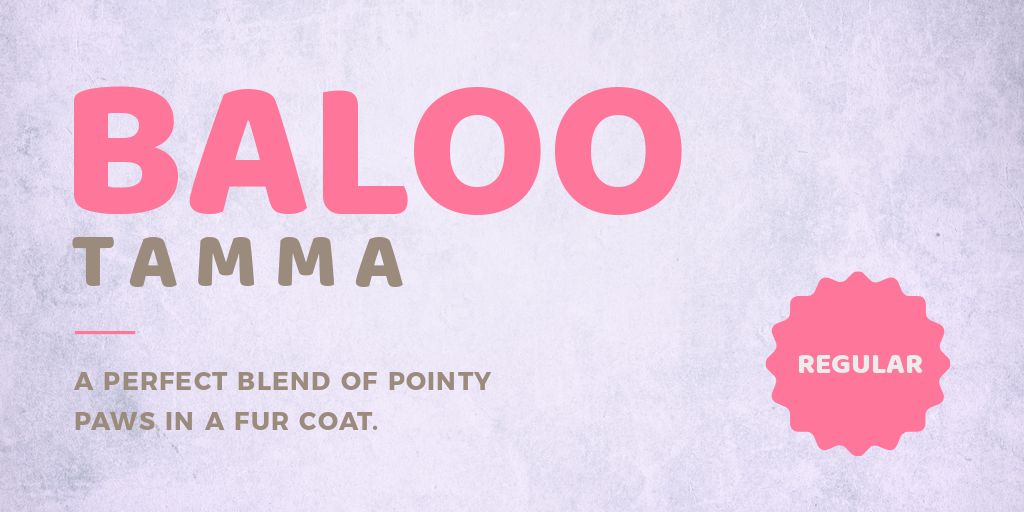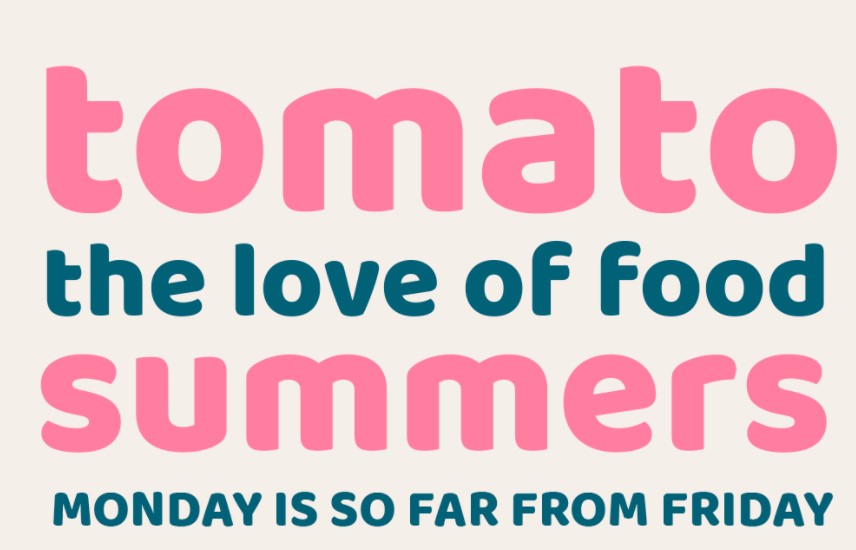
Baloo Font Pairing. Drawing from the visual style of the california public, barlow shares qualities with the state's car plates, highway signs, busses, and trains. These are some latest pairings for you to be inspired and create your exclusive font pairing, although there are no fixed rules for pairing fonts to create a unique design.
Designed By Ek Type, Baloo Is A Bubbly, Rounded Font, And Works Well With A Simple Font Like Montserrat, Due To It’s Lighter Weight.
That stylish font has a popular texture so that can also be used in font pair conditions just as the hack font. Furthermore, it has 1408 unique glyphs with 165 international language support. A perfect blend of pointy paws in a coat of fur, baloo is an affable display typeface by ek type.
Now By Bold, I Don’t Just Mean A Font In Bold.
A serif font is without trouble recognized with the useful aid. It is natural that thick font makes a great combination with bold or semibold typefaces. It was created by frank hemmekam and is a purely monospaced typeface.
Its A Modern, Crisp Typeface That Pairs Well With Archvio, Lora, Rokkit, Nunito, Raleway And Space Mono.
These are some latest pairings for you to be inspired and create your exclusive font pairing, although there are no fixed rules for pairing fonts to create a unique design. Using bold fonts is a bonafide way to get your business or product noticed. Baloo with montserrat font pairings.
Karla Is Available In Seven Weights With Matching Italics.
Baloo is a rounded, bubbly font that can be overpowering if not appropriately balanced. Drawing from the visual style of the california public, barlow shares qualities with the state's car plates, highway signs, busses, and trains. A serif font is without trouble recognized with the useful aid.
The Font Was Designed By Developed For High Resolution Or Hd Images.